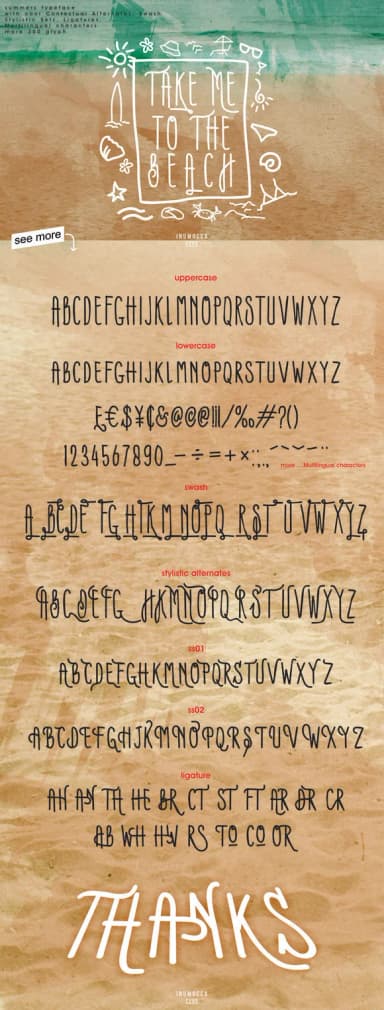
About Summers Font
Summers Font by inumocca_type is a flowing script typeface that brings hand-lettered authenticity and contemporary elegance to any creative project. The font captures the relaxed, warm spirit of sun-soaked inspiration through organic curves and natural letterforms that feel distinctly personal without sacrificing legibility or versatility across different mediums and applications. This typeface truly shines in intimate and premium design contexts where distinctive character strengthens the overall brand identity. Wedding stationery suites benefit from its graceful strokes and romantic feel, as do custom greeting card collections and luxury event signage projects. The connected letterforms work beautifully for artisanal product label designs, particularly effective for boutique beauty brands and specialty food packaging. Social media quote graphics gain remarkable personality when set in this script, while the font's reliable structure makes it equally suited for personalized gift labeling, monogram work, and invitation designs that demand sophistication. Summers Font works seamlessly with popular cutting and engraving machines, making it valuable for custom vinyl projects and DIY crafters seeking professional-looking results. The consistent letterforms ensure clean cuts and impressive detail reproduction at various sizes, giving makers confidence in their finished pieces. Whether designing luxury brand collateral or intimate personal projects, this typeface delivers the hand-crafted appeal that contemporary audiences recognize and appreciate. Discover Summers Font on Creative Fabrica and bring authentic hand-lettered elegance to your next design vision.
Summers Font ships with 4 OpenType features you can switch on in apps that support them (Illustrator, InDesign, Affinity, Figma, CSS font-feature-settings).
Summers Font is a script font that shines as a display or heading face. Pair it with a clean sans-serif or serif font for body text β the contrast creates a clear hierarchy while the two styles stay balanced and easy to read.